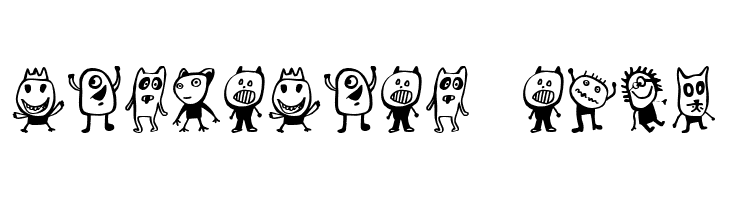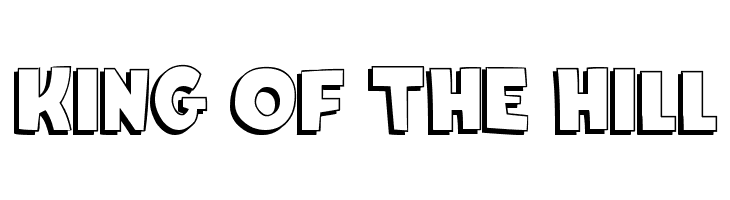
A whimsical, hand-drawn font featuring quirky, cartoon-like characters.
A bold, geometric font with a modern, industrial style.
A bold, geometric font with a modern, industrial aesthetic.
A bold, dynamic font with thick strokes and sharp edges, ideal for impactful designs.
A bold, geometric font with a futuristic and angular design.
A bold, angular, and futuristic italic font with a dynamic style.
A modern, artistic font with flowing, interconnected strokes and a bold appearance.
A bold, decorative font with pirate-themed flair and unique embellishments.
A bold, high-contrast serif font with a classic and authoritative style.
A bold, cartoonish font with thick outlines and playful shapes.